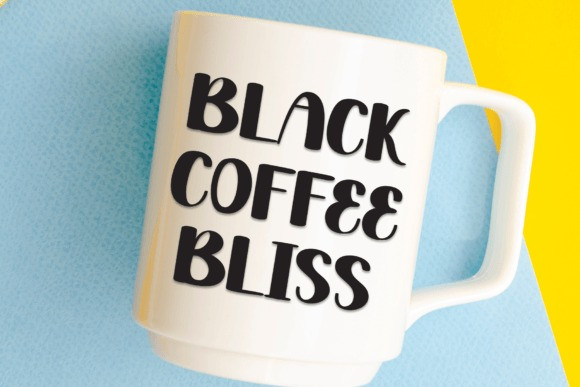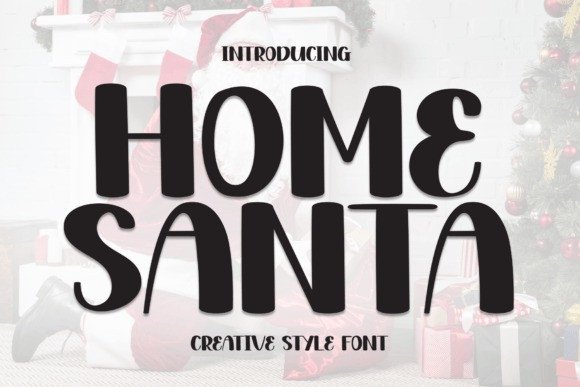
Home Santa Cute Font
Home Santa Cute Font a heartwarming handwritten font that’s as sweet as it is friendly. This font infuses a delightful charm into every curve and line. Perfect for crafting wedding invitations, greeting cards, or any design intent on spreading joy, this font is a delightful companion to any project that craves a splash of playful elegance. Experience an irresistibly cute, fun-loving font that never fails to capture hearts and imaginations.